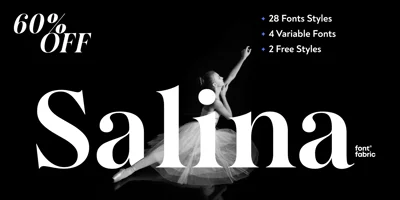
Salina Font
Salina Font is ideal for coastal resort branding, maritime communications, seaside restaurant menus, ocean-themed packaging, beach vacation promotions, nautical event materials, marine industry presentations, salt product labeling, wellness spa branding, and aquatic lifestyle campaigns. This refreshing typeface creates authentic oceanic atmosphere in both coastal print and digital marine applications.
What makes Salina Font exciting is its beautifully flowing character design that perfectly captures the essence of ocean waves and coastal serenity. The font features fluid letterforms with organic curves and salt-crystalline details that evoke gentle sea breezes and pristine shorelines. Its refreshing design establishes an atmosphere of natural tranquility and coastal sophistication that appeals to audiences seeking authentic maritime experiences and oceanic calm.
Salina Font family includes oceanic variations: Light, Regular, Medium, Bold, and Wave versions, each with marine alternates and coastal character sets. Each variant maintains the font's aquatic personality while providing designers with flowing options for creating seaside typography systems and maritime communication materials.
This exceptional coastal typeface brings authentic marine sophistication to projects requiring oceanic presentation. Whether you're designing seaside branding, marine marketing, or coastal event materials, Salina Font delivers outstanding aquatic appeal and maritime elegance. The font's flowing proportions and oceanic details ensure memorable coastal connection across various marine applications.
Coastal businesses and marine brands recognize how Salina Font perfectly embodies the spirit of ocean life and seaside tranquility. Its maritime foundation combined with natural flow makes it essential for coastal and aquatic design projects. Download today and flow your designs with this exceptionally refreshing oceanic typography.